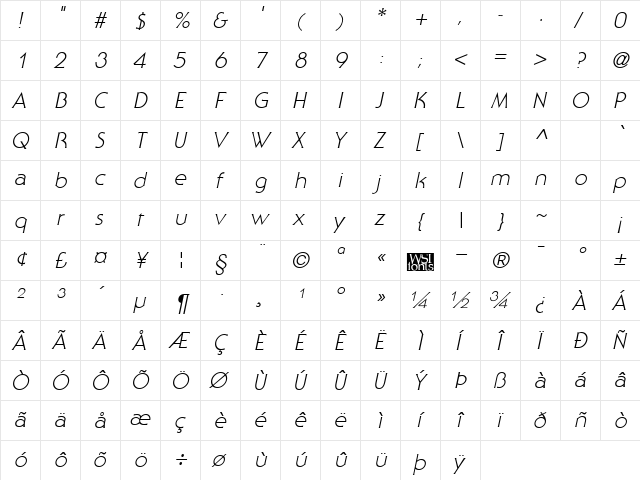
StaidGothicLight Italic
Design Context for StaidGothicLight Typeface
StaidGothicLight has the quiet confidence of well-executed sans-serif typography: versatile, unobtrusive, and dependable at any size. The slanted form adds forward momentum and visual energy. Its slender proportions lend an understated elegance to any composition.
Ideal for fashion and beauty branding, minimal editorial layouts, and premium digital experiences.
Font Pairing: Pair StaidGothicLight with a medium or bold serif for headlines — the weight contrast creates an elegant, high-end feel.
Pro Tip: Avoid using StaidGothicLight at very small sizes where its slender strokes can disappear. It performs best at medium to large sizes.